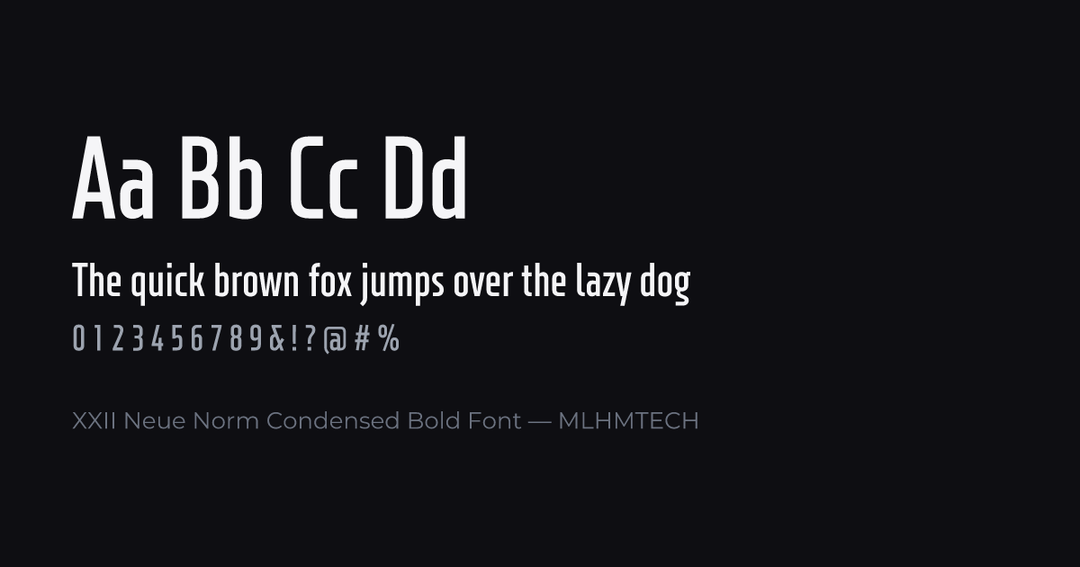
XXII Neue Norm Condensed Bold Font
A bold, condensed sans-serif font that commands attention. Ideal for headlines, titles, and branding projects.
XXII Neue Norm Condensed Bold is a striking sans-serif typeface with a condensed, geometric structure. Its bold weight and tight letterforms make it perfect for impactful headlines, posters, and video titles that need to stand out.
This font is part of the XXII Neue Norm family, known for its clean, modern aesthetic. The condensed style allows for efficient use of space while maintaining high legibility, making it suitable for both print and digital applications.